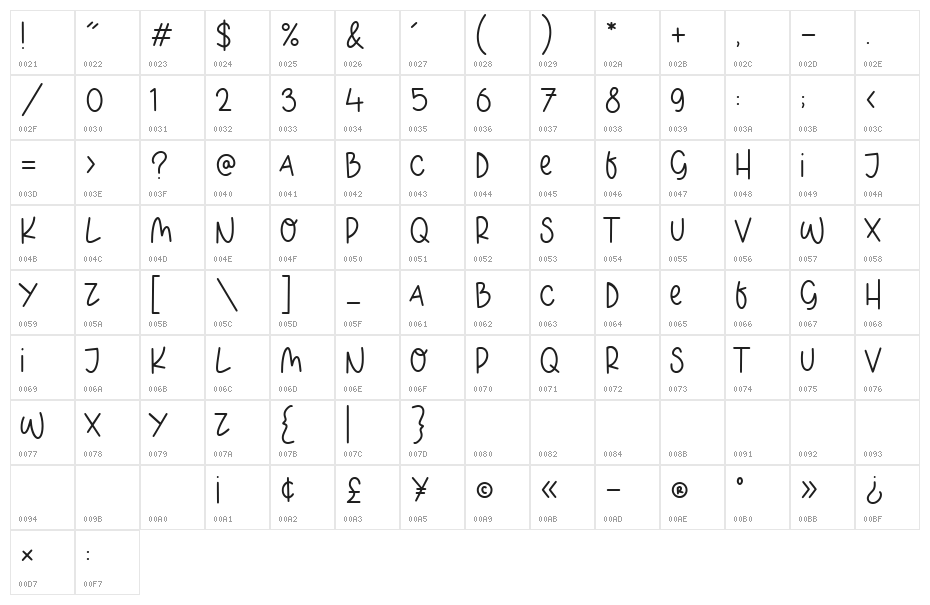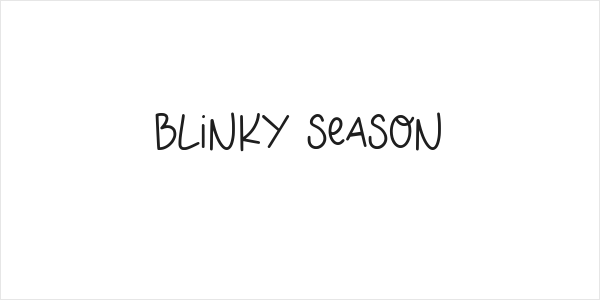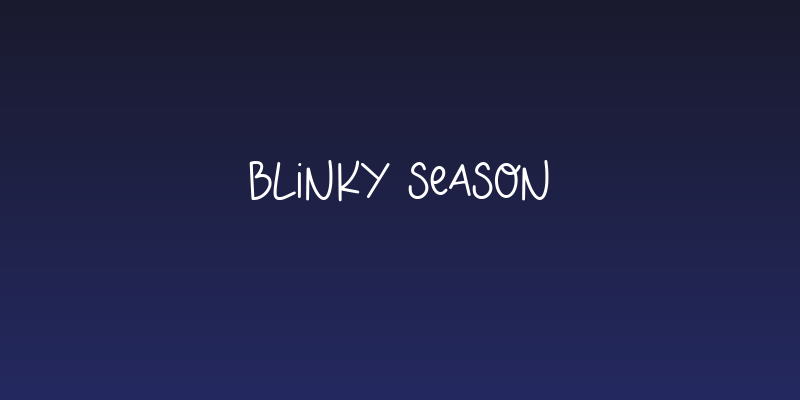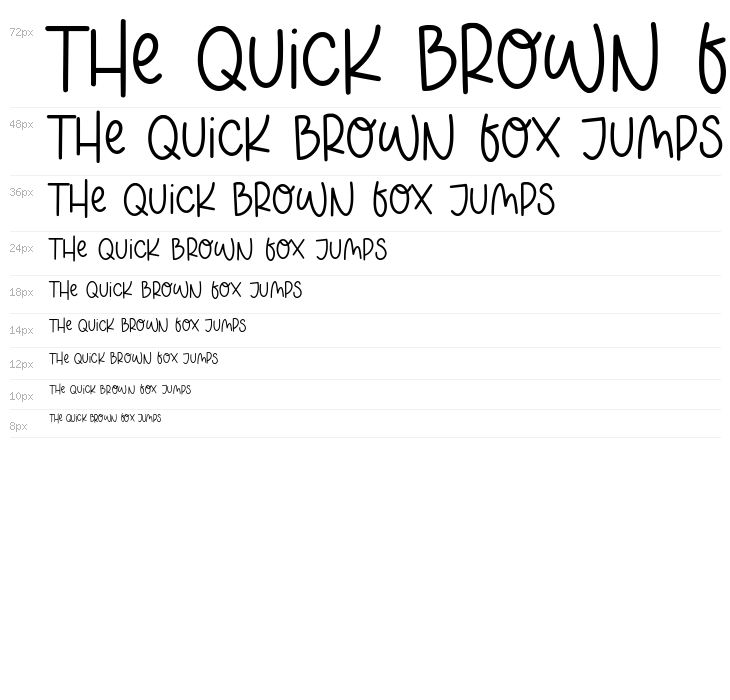
BLINKY SEASON Font
BLINKY SEASON Description
This playful and informal font features a handwritten style with a casual, friendly appearance. The letters are slightly irregular, giving it a personal touch that mimics natural handwriting. The strokes are consistent in weight, providing a uniform look across all characters. The rounded edges and smooth curves enhance its approachable and relaxed feel. This font includes both uppercase and lowercase letters, numerals, and a variety of special characters, making it versatile for different uses. Its legibility and charm make it suitable for projects that require a personal or whimsical touch.
| Use Case | Headlines, Informal text, Personal projects |
| Proposed Projects | Ideal for greeting cards, children's books, casual invitations, and personal branding. |